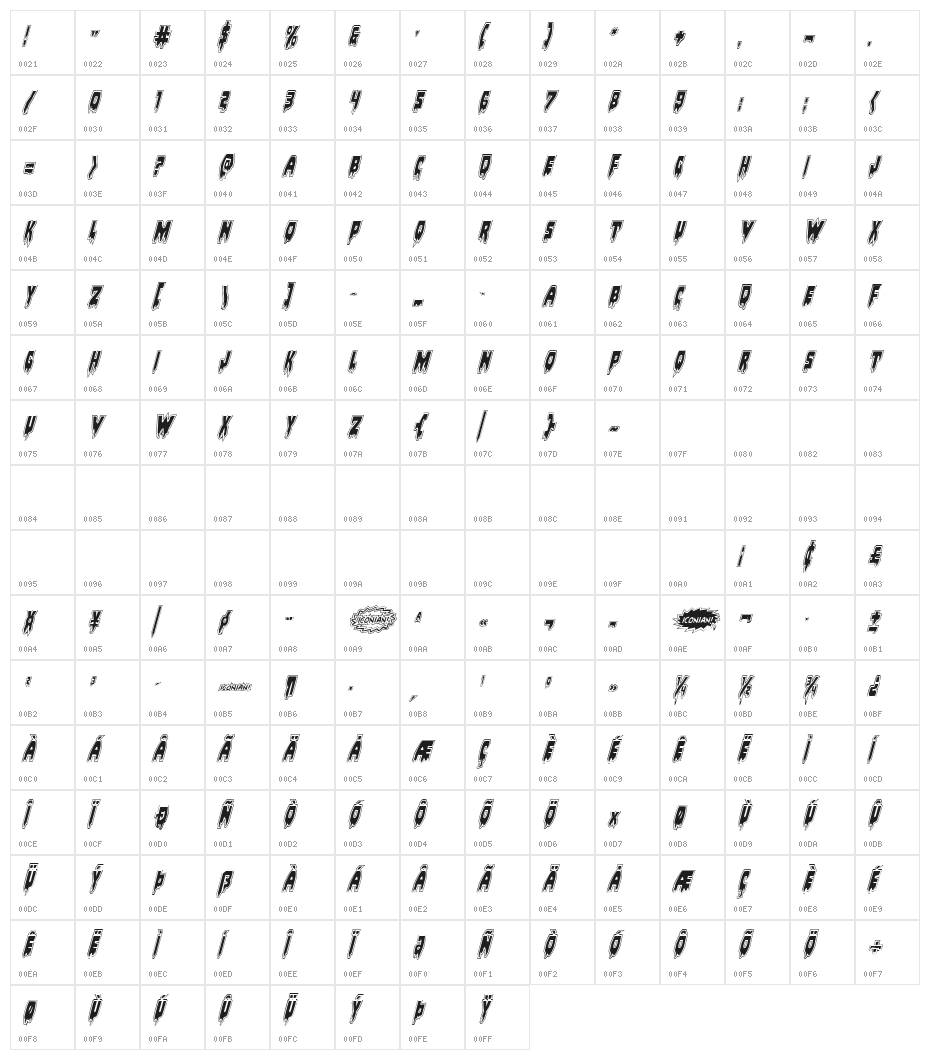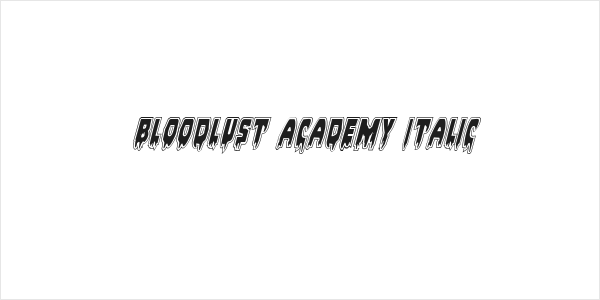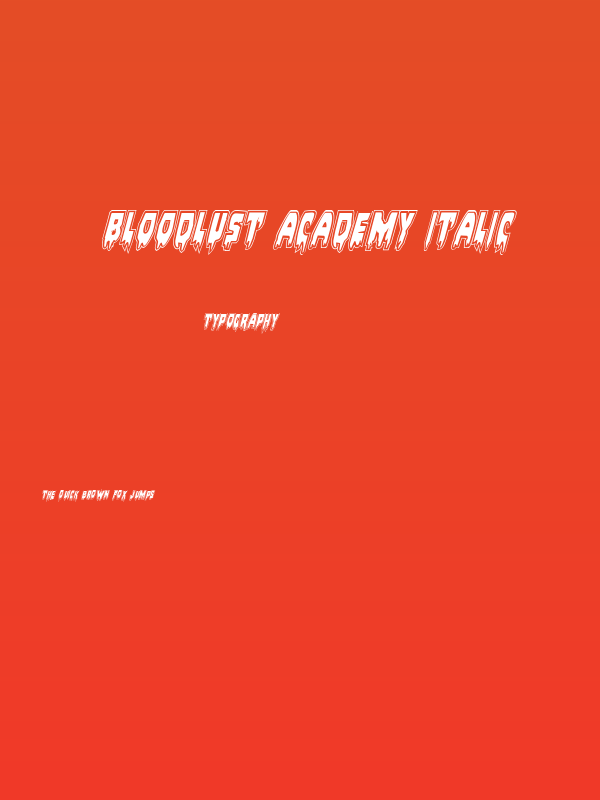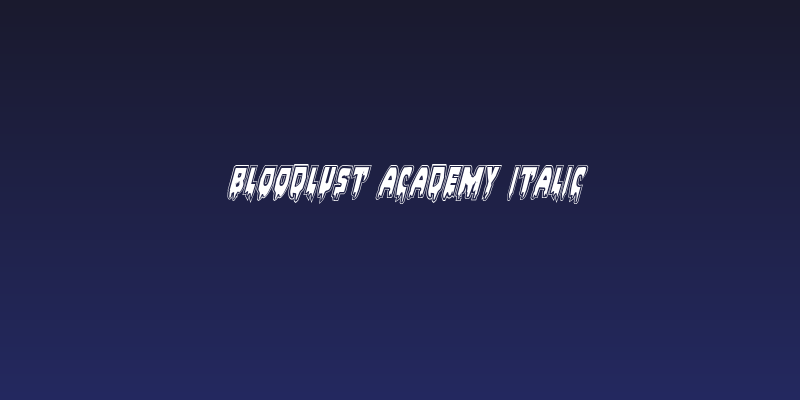
Bloodlust Academy Italic Font
Bloodlust Academy Italic Description
This font features a bold and dramatic style with sharp, jagged edges that evoke a sense of horror and intensity. The letters appear to be dripping or melting, adding a dynamic and unsettling effect. The uppercase and lowercase characters maintain a consistent theme, with each letter exhibiting a unique, distorted form that enhances the overall eerie aesthetic. The numbers and special characters follow the same design principles, ensuring a cohesive look across all glyphs. This font is designed to capture attention and convey a sense of urgency or fear, making it ideal for projects that require a strong visual impact.
Proposed ProjectsIdeal for Halloween-themed designs, horror movie posters, haunted house flyers, or any project needing a spooky, dramatic flair.